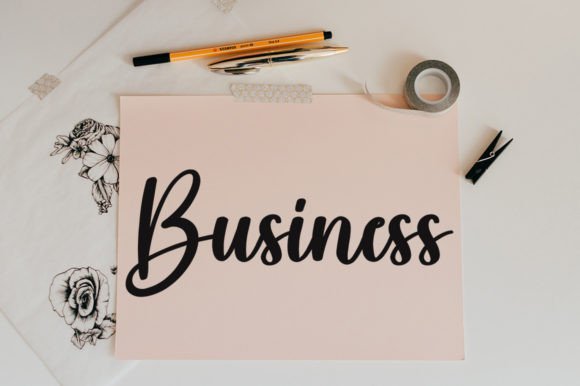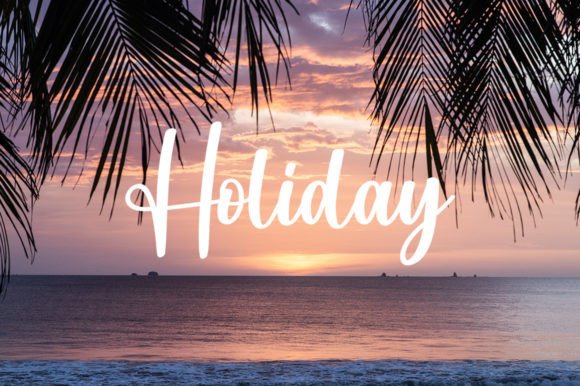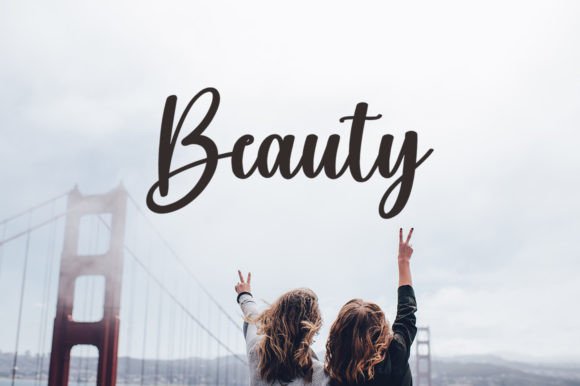
A Fun and Friendly Handwritten Font
The Handmade Font is a fun and friendly handwritten typeface that adds a personalized and cheerful touch to any design. With its playful strokes and approachable style, this font is perfect for a wide variety of creative projects. Whether you’re working on crafts, digital designs, presentations, or greeting cards, the Handmade Font offers a versatile, eye-catching style that makes your work stand out with character and charm.
Perfect for Crafts and DIY Projects
If you’re creating crafts or DIY projects, the Handmade Font is an excellent choice. Its playful, handwritten design adds a personalized, charming touch to your creations. Whether you’re working on scrapbooking, wall art, or any other handmade project, this ensures that your designs have a unique, handcrafted feel, making them stand out and feel truly one-of-a-kind.
Ideal for Digital Designs and Presentations
For digital designs and presentations, the Handmade Font adds a fresh, fun vibe to your work. Whether you’re creating website graphics, social media posts, blog headers, or presentation slides, this font brings a personal and friendly touch to your designs. Its readability and approachable style ensure your digital content is engaging, while its handwritten feel adds warmth and uniqueness to your presentations.
Great for Greeting Cards and Invitations
The Handmade Font is perfect for creating greeting cards, invitations, and thank you notes. Whether you’re designing for birthdays, holidays, or special events, this font brings a heartfelt, fun touch to your messages. Its casual yet charming design ensures that your cards and invitations feel both personal and inviting, making them perfect for a variety of occasions.
Versatile for Multiple Design Applications
The Handmade Font is incredibly versatile, making it suitable for a wide range of design applications. Whether you’re working on flyers, logos, branding, t-shirts, or stationery, this font adapts beautifully to your creative needs. Its friendly, approachable style ensures that it works well across digital and print media, making it ideal for both personal and business projects.
Fun, Friendly, and Legible
Despite its fun and playful design, the Handmade Font remains legible and easy to use. Its smooth and clear strokes ensure that your text remains readable, even when used for longer passages or smaller sizes. Whether you’re creating headlines, captions, or full text blocks, this font provides the perfect combination of charm and clarity, making it suitable for a variety of design needs.
The Handmade Font is designed to be easy to use and integrates seamlessly into most design software. Whether you’re working on craft projects, presentations, logos, or social media graphics, this font ensures that your designs look polished and professional. Its adaptability makes it perfect for both large text and small details, giving you flexibility for any design project.
Add a Fun and Friendly Touch to Your Designs with Handmade Font
If you’re looking for a fun, friendly, and approachable handwritten font to enhance your designs, the Handmade Font is the perfect choice. Whether you’re working on crafts, digital designs, presentations, or greeting cards, this font brings a personalized touch that makes your projects stand out. Let the Handmade Font add creativity, warmth, and charm to your work, and create spectacular designs that leave a lasting impression.